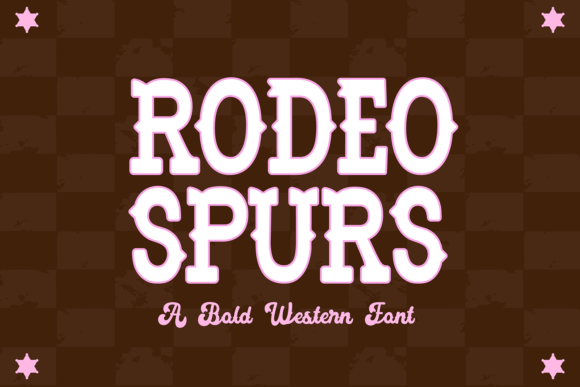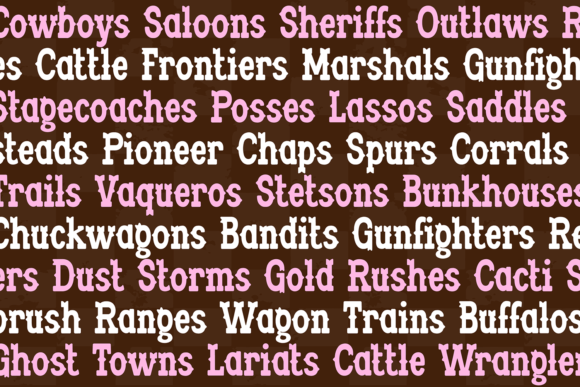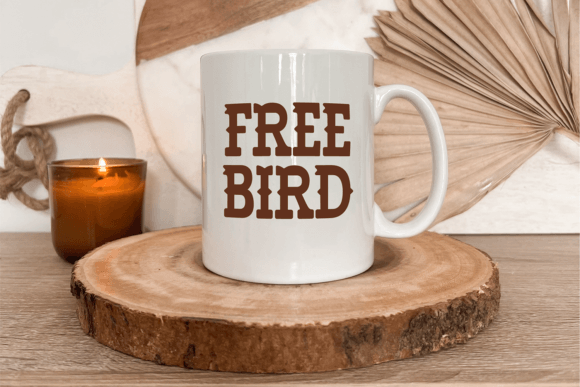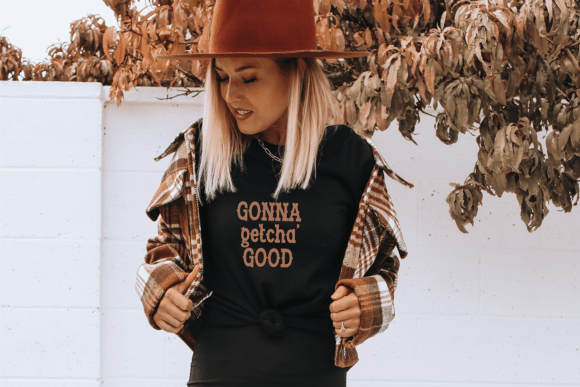
Rodeo Spurs Font: A Wild West Display Font for Logo Design!
About the Rodeo Spurs Font
Add a touch of class to your work with the Rodeo Spurs Font, a truly exceptional typeface. Rodeo Spurs is an incredibly cool and unique slab serif font. It has a modern yet whimsical style and it will undoubtedly immerse your designs into a magical world.
Rodeo Spurs’ bold, playful personality makes it ideal for headlines, short text blocks in posters, and branding applications where a touch of whimsicality is desired. Its strong character, however, makes it less suitable for body text or UI elements requiring high readability. Long paragraphs set in Rodeo Spurs would prove visually overwhelming.
This font pairs well with clean sans-serif fonts like Open Sans for a balanced contrast, or with a more geometric sans-serif for a modern, slightly edgy feel. A delicate script font could also add a touch of elegance to designs featuring Rodeo Spurs, softening its strong forms.
Consider Rodeo Spurs for projects needing a strong visual identity – think Western-themed brands, children’s books, or playful product packaging. Its unique character should be the focal point, not the primary text carrier.
Rodeo Spurs Font Usage Examples
Rodeo Spurs Font Example